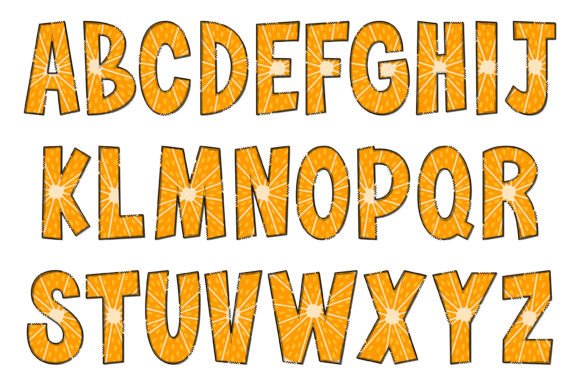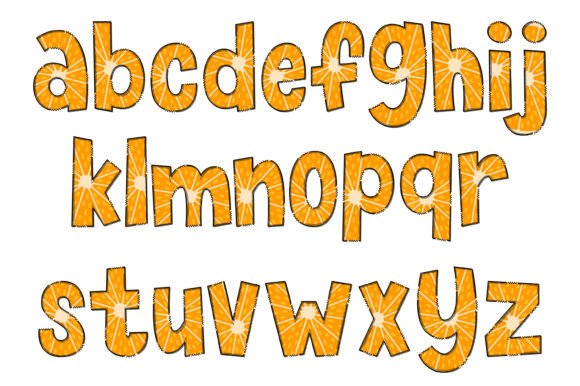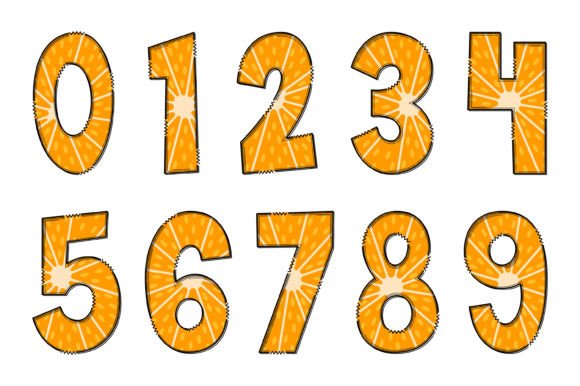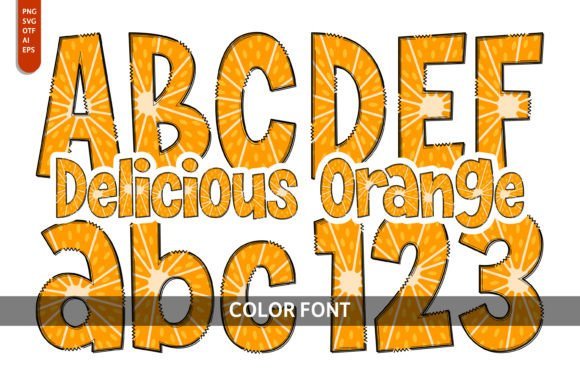
Introduction to Delicious Orange Font
Delicious Orange font is often used in designs that aim to convey a playful or artistic feel, such as children’s books, posters, invitations, greeting cards, and more.
For instance, children’s books often utilize fonts that are whimsical, colorful, and easy to read, creating an engaging reading experience for young audiences Note.
Key Features of Delicious Orange Font
Why Choose Delicious Orange Font?
Delicious Orange Font offers exceptional quality and versatility, making it a valuable addition to your design toolkit. Whether you’re creating for personal projects or commercial use, Delicious Orange Font delivers professional results.